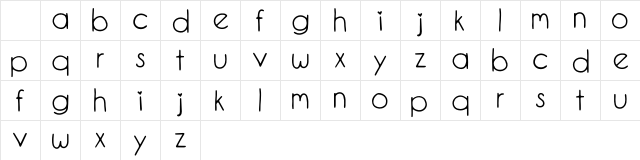
Ellie Mae is a composed and adaptable typeface that performs quietly and consistently across a wide range of design contexts.
Pro Tip: Use Ellie Mae in both headline and body roles to test its range before committing to a single application.